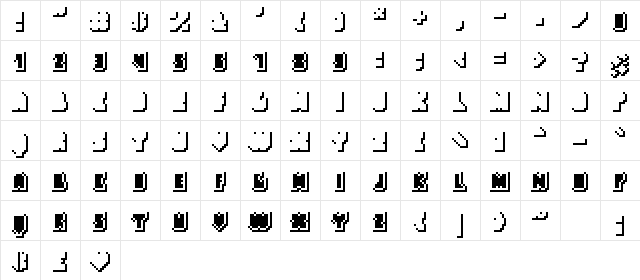
ApplyBeefShadow Medium
Design Context for ApplyBeefShadow Typeface
ApplyBeefShadow is built around its visual character rather than neutral utility — its distinctive forms are designed to make an impression at display sizes.
Font Pairing: Pair with a clean neutral sans-serif for body copy to let ApplyBeefShadow's character lead without overwhelming the composition.
Pro Tip: Treat ApplyBeefShadow as the centrepiece of your typographic hierarchy. One strong heading set in a decorative face can carry an entire layout.